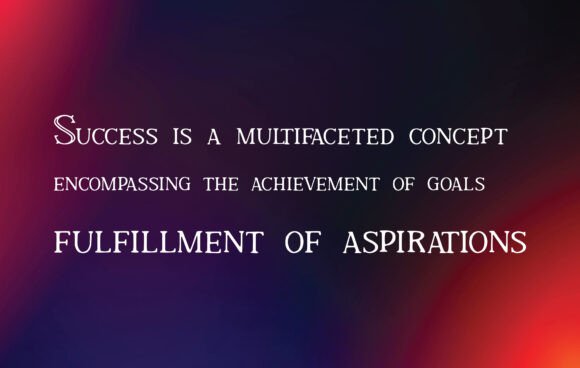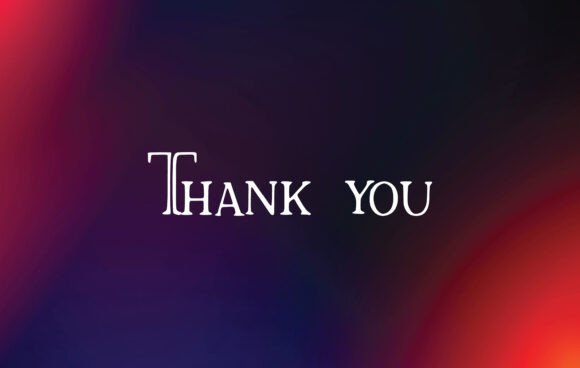
Introduction to Khaza Font
Remember that moment when you finally found the perfect font to elevate your creative project? For designers, it’s a moment of pure joy and relief. Whether you’re working on a logo, branding, or a simple quote, the right font can make all the difference. And that’s exactly what the Khaza Font promises to deliver – a beautiful and elegant serif font that will take your designs to new heights.
As a valuable design resource, the Khaza Font is a game-changer for designers looking to add a touch of sophistication to their work. With its stunning high-quality design, this font is perfect for creating eye-catching logos, branding, and quotes that stand out from the crowd. Plus, with a transparent background, you can easily customize it to fit your design needs. And the best part? You can download it for free, making it an essential addition to any designer’s toolkit.
Key Features of Khaza Font
- High-quality design resource suitable for creative projects, including logos, branding, and graphics.
- Designed with a unique aesthetic, making it an ideal choice for designers looking to add a touch of sophistication to their work.
Honest Review: Khaza Font
I recently stumbled upon the Khaza Font, a free design resource that has caught my attention. As a designer, I’m always on the lookout for high-quality fonts to elevate my creative projects.
Here are some things that work well with the Khaza Font:
- ✨ Unique and modern design aesthetic that sets it apart from other fonts.
- ✨ High quality, with clear and legible characters.
- ✨ Supports a wide range of languages, making it a great option for global projects.
- ✨ Comes with a transparent background, allowing for seamless integration with any design.
- ⚠️ Limited font weights and styles, which may not be suitable for all projects.
- ⚠️ Not suitable for use in very small sizes, as it can become blurry.
Overall, I’m impressed with the Khaza Font. It’s a great addition to any designer’s toolkit, and I can see it being used in a variety of creative projects. While it may not be perfect, its strengths outweigh its limitations, making it a worthwhile free download for designers looking for a modern and versatile font.
Getting the Most Out of Khaza Font
Some tips for getting the most out of the Khaza Font include using it in conjunction with other design elements, experimenting with different font sizes and colors, and taking advantage of the transparent background feature.
The Khaza Font is perfect for a wide range of design projects, including logos, brochures, business cards, and social media graphics. Its high quality and transparent background feature make it a great resource for anyone looking to add a unique touch to their creative project.